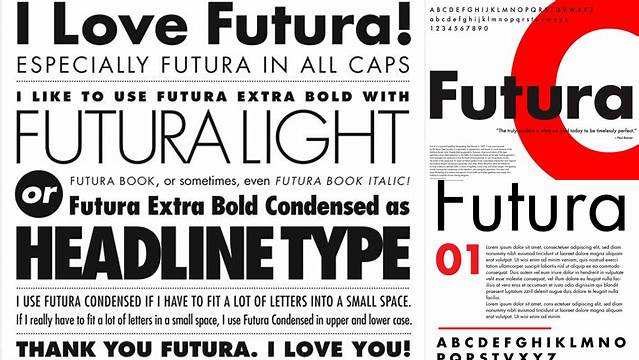
Futura Font: Free Download & Best Uses In Design
Are you guys looking for a font that's both classic and modern? Look no further than Futura! This geometric sans-serif typeface has been a favorite among designers for decades, and for good reason. Its clean lines and balanced proportions make it incredibly versatile, perfect for everything from logos and headlines to body text and website design. In this article, we'll dive into the history of Futura, explore its unique characteristics, discuss its best uses, and, of course, guide you on how to download Adobe Futura font for free, legally and safely.
What Makes Futura So Special?
Futura, designed by Paul Renner in 1927, is more than just a font; it's a design statement. Its roots lie in the Bauhaus movement, which emphasized functionality and simplicity. Renner's vision was to create a typeface that reflected the modern age, a font stripped of unnecessary ornamentation, focusing purely on geometric forms. This resulted in a typeface that's built upon basic shapes like circles, squares, and triangles, giving it a distinctive and instantly recognizable appearance. The perfectly circular 'O' is perhaps Futura's most iconic feature, and it exemplifies the font's geometric purity. But it's not just about the shapes; it's about the balance. The proportions of Futura are meticulously crafted, ensuring readability and visual harmony across various weights and sizes. This attention to detail is what makes Futura so adaptable, allowing it to shine in diverse applications, from print to digital.
Beyond its aesthetic appeal, Futura also carries a historical significance. It was one of the first typefaces to truly embrace the sans-serif style, which was a bold move at the time. It quickly gained popularity and became a symbol of modernism, finding its way into everything from corporate branding to movie posters. Its association with progress and forward-thinking design made it a natural choice for companies and institutions that wanted to project an image of innovation and sophistication. Even today, Futura's influence is undeniable. Its legacy can be seen in countless other typefaces, and it continues to inspire designers around the world. So, what is it about Futura that makes it so enduring? It's the perfect blend of form and function, a typeface that's both beautiful and practical. It's a testament to the power of good design, a reminder that simplicity can be incredibly powerful. When you choose Futura, you're not just choosing a font; you're choosing a piece of design history.
The Versatility of Futura: Where Can You Use It?
Futura's versatility is one of its greatest strengths. This font isn't a one-trick pony; it's a design chameleon, adapting seamlessly to a wide range of projects and styles. Think logos, for starters. Futura's clean and modern aesthetic makes it an excellent choice for brands that want to project an image of sophistication and clarity. Many well-known companies have used Futura in their logos, highlighting its timeless appeal and ability to convey trust and reliability. Beyond logos, Futura shines in headlines and display text. Its strong geometric forms command attention, making it ideal for grabbing the reader's eye and conveying important information quickly and effectively. Whether it's a website header, a magazine headline, or a poster design, Futura adds a touch of elegance and modernity. But don't think Futura is just for the big stuff. It's also surprisingly readable in body text, especially in shorter paragraphs and captions. While it might not be the best choice for long-form content (due to its geometric nature, which can sometimes feel a little rigid), it works wonderfully in situations where clarity and conciseness are key.
Consider brochures, flyers, and presentations – Futura can bring a sense of professionalism and polish to these materials. In the digital realm, Futura is equally at home. It looks great on websites, in apps, and even in user interfaces. Its clean lines ensure readability on screens of all sizes, making it a reliable choice for digital design. The key to using Futura effectively is to understand its strengths and limitations. It's a font that loves space and clarity, so avoid overcrowding it with other design elements. Let its geometric forms breathe, and it will reward you with a design that feels both modern and timeless. Experiment with different weights and styles within the Futura family to find the perfect fit for your project. And don't be afraid to pair it with other fonts to create visual contrast and interest. Overall, Futura's adaptability makes it a valuable tool in any designer's arsenal. It's a font that can be used in countless ways, making it a true classic in the world of typography.
Conclusion: Embracing the Timeless Appeal of Futura
So, guys, we've journeyed through the world of Futura, exploring its history, versatility, and the options for getting your hands on this iconic typeface. From its Bauhaus roots to its modern-day applications, Futura has proven itself to be a timeless classic in the world of typography. Its geometric simplicity, clean lines, and balanced proportions make it a versatile choice for a wide range of design projects, from logos and headlines to body text and website design. Whether you choose to purchase a license for the original Futura, explore free alternatives like Montserrat or Poppins, or use it through an Adobe Creative Cloud subscription, the key is to understand the font's strengths and use it effectively. Futura is a typeface that thrives on clarity and space, so let its geometric forms breathe and it will reward you with a design that feels both modern and elegant. Its enduring appeal lies in its ability to convey a sense of sophistication and forward-thinking design, making it a perfect choice for brands and projects that want to project an image of innovation and reliability.
Ultimately, the best font for any project depends on your specific needs and goals. But Futura's timeless appeal and versatility make it a valuable addition to any designer's toolkit. So, embrace its geometric beauty, experiment with its different weights and styles, and discover how Futura can elevate your designs. Whether you're a seasoned professional or just starting out, Futura is a font that will inspire you and help you create visually stunning and impactful work. And remember, always prioritize legal and ethical font sourcing to support the design community and ensure you're using high-quality typefaces in your projects.